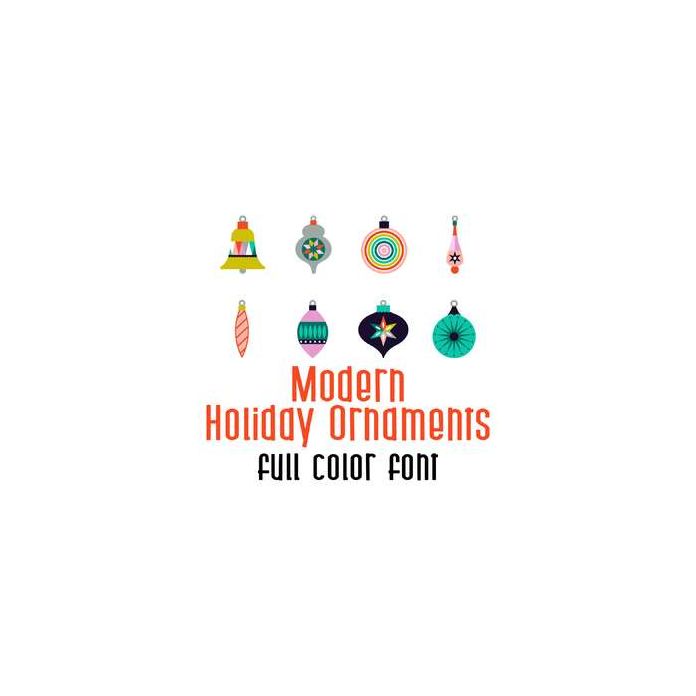
This adorable full color doodlebat font features beautiful modern ornament designs. Perfect for Christmas, cards, crafts, gifts, decor, scrap book pages, planner stickers and more!